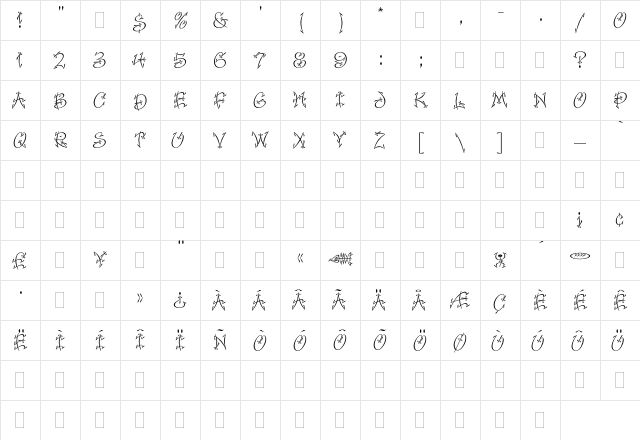
Faithful Fly Plain
Design Context for Faithful Fly Typeface
Faithful Fly is a composed and adaptable typeface that performs quietly and consistently across a wide range of design contexts.